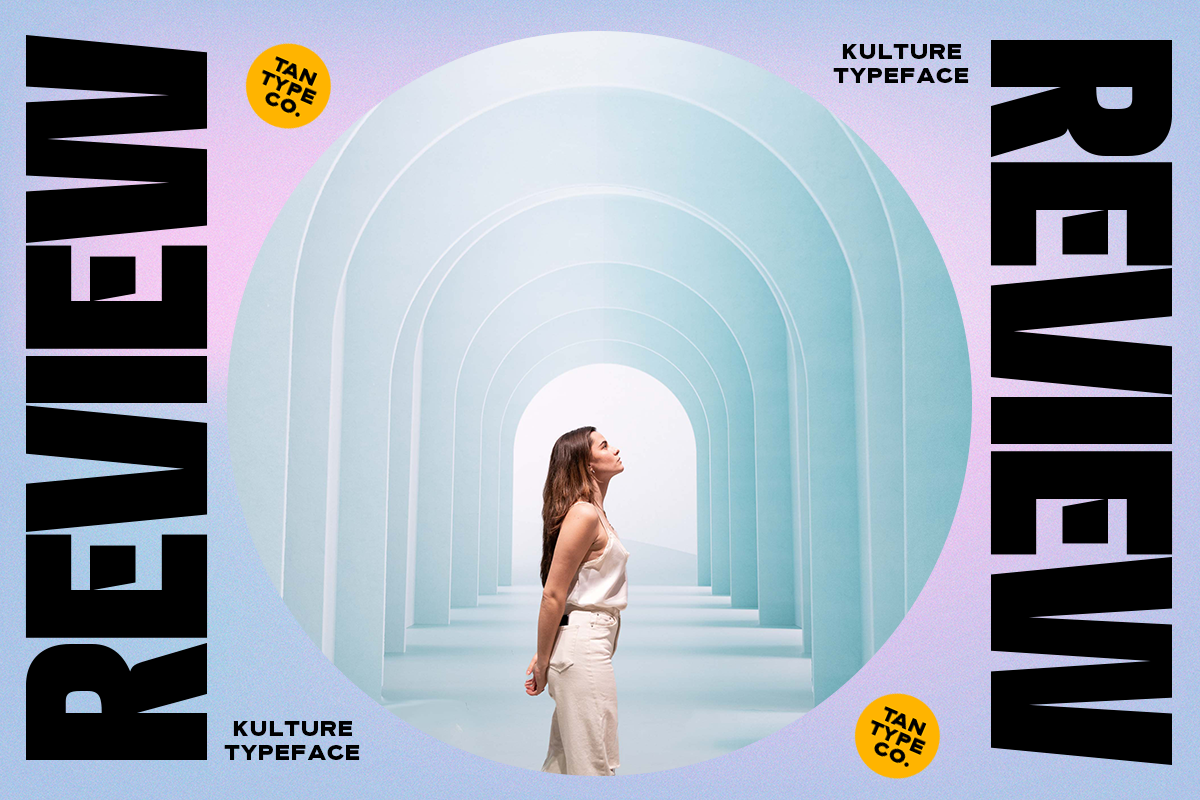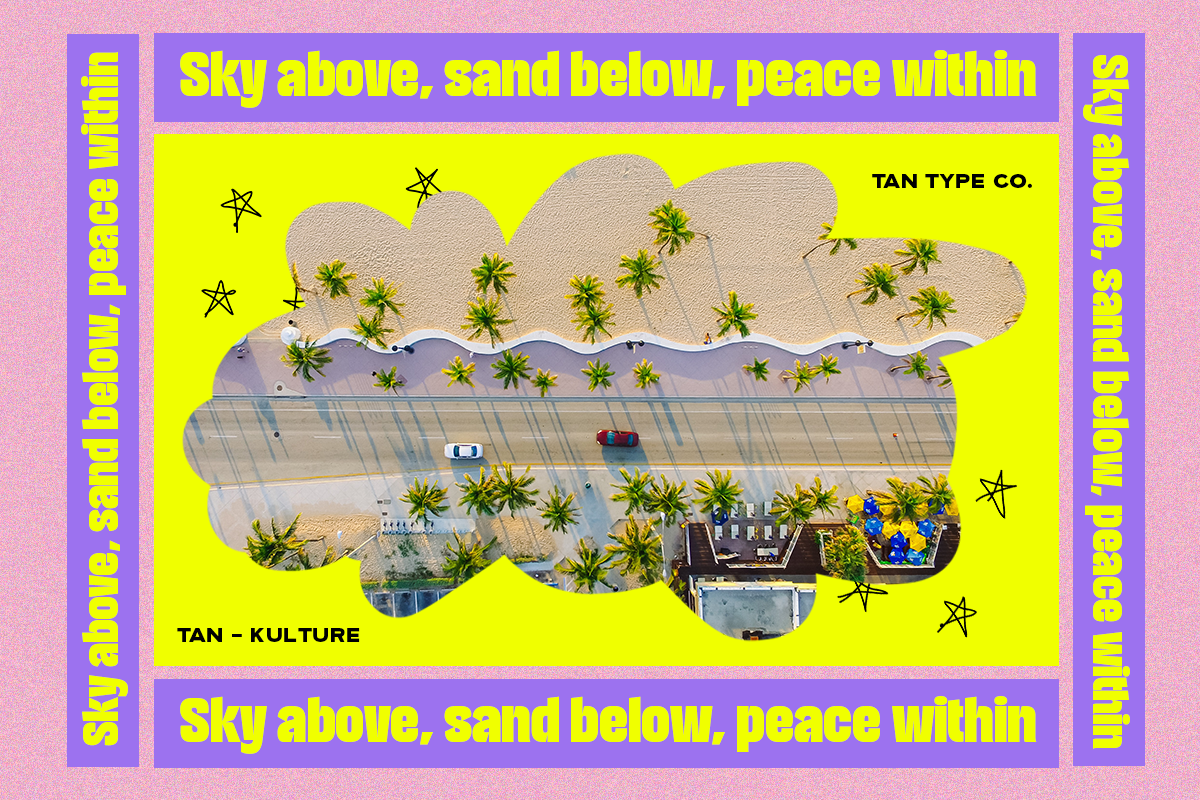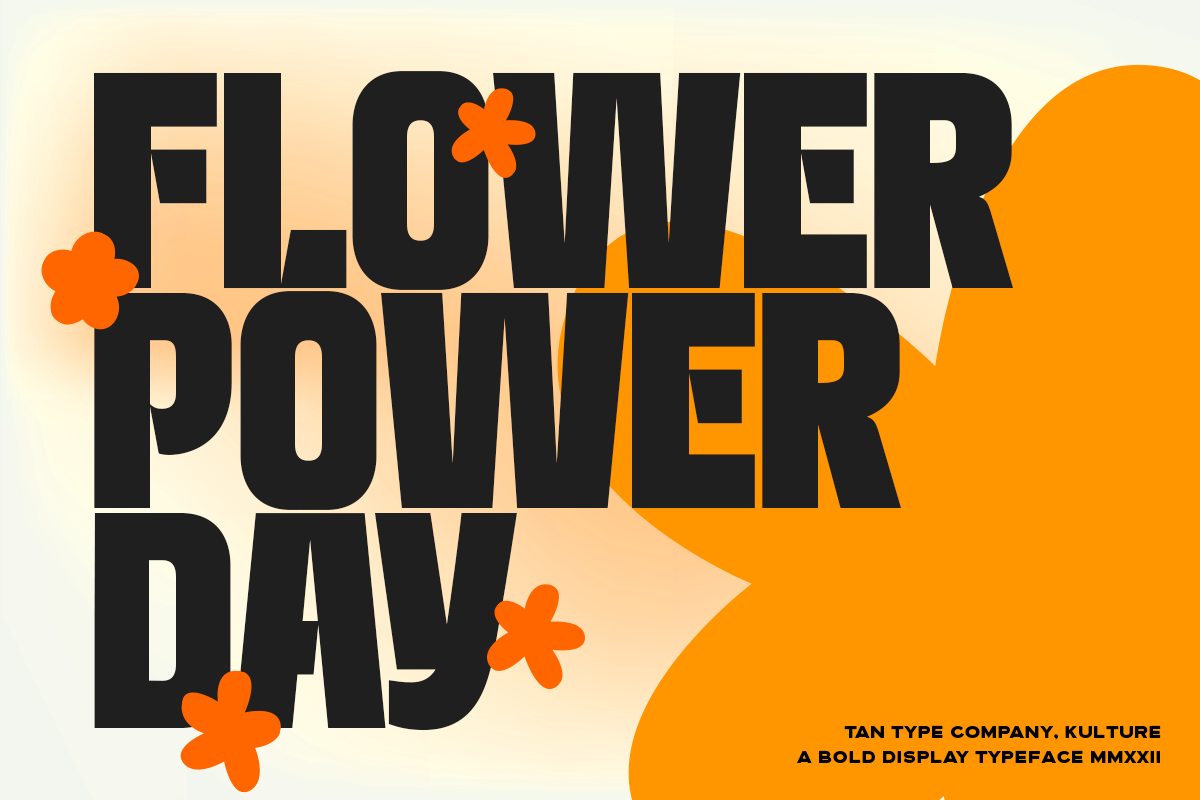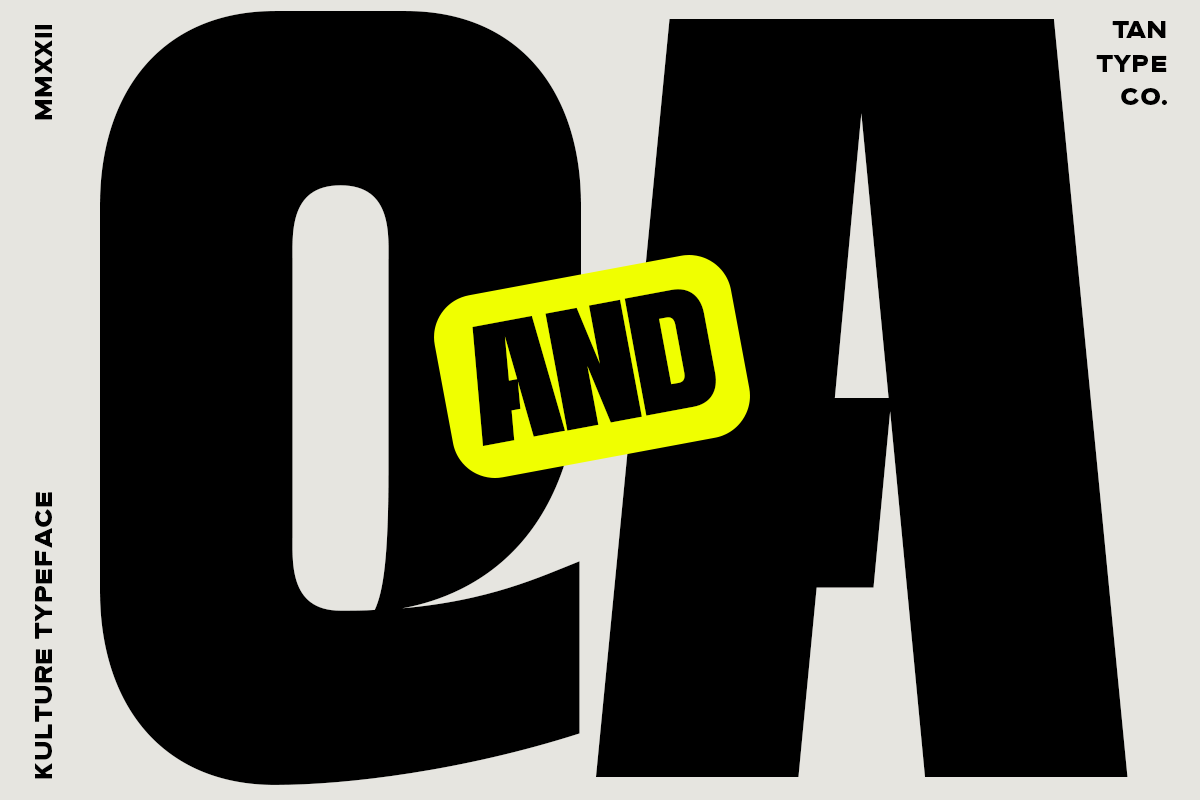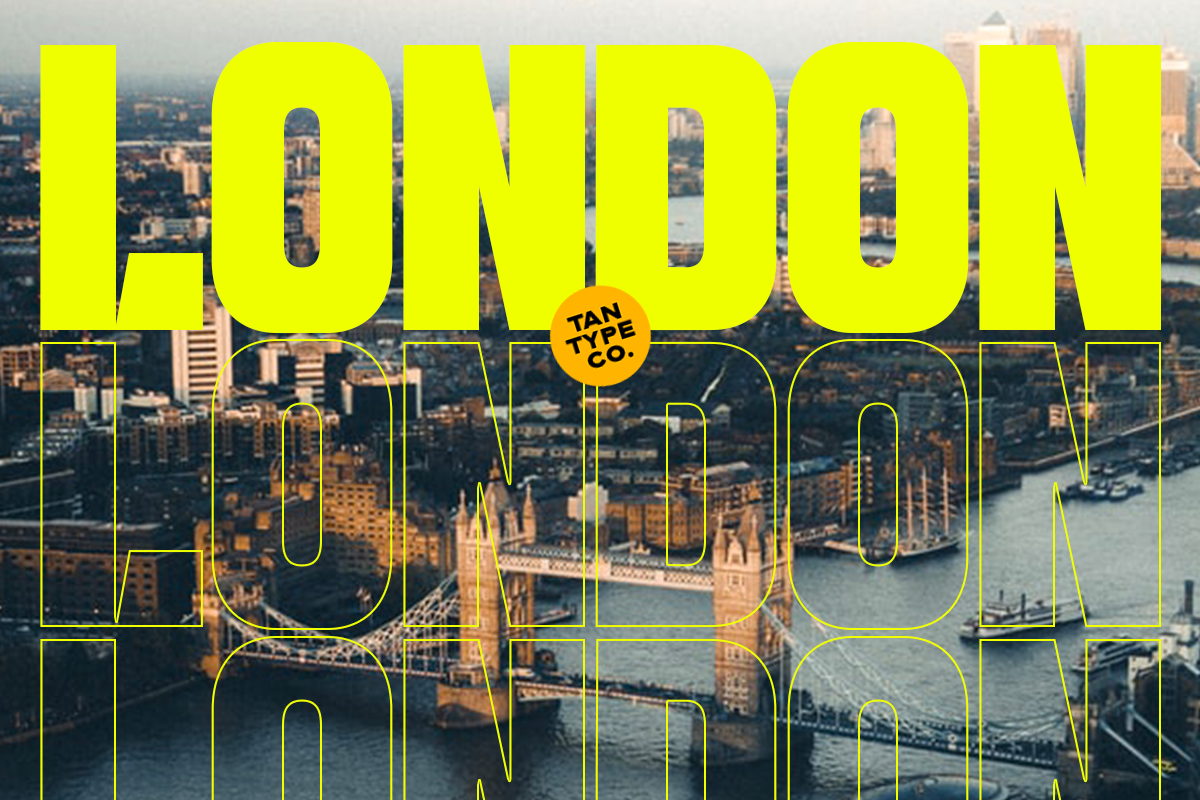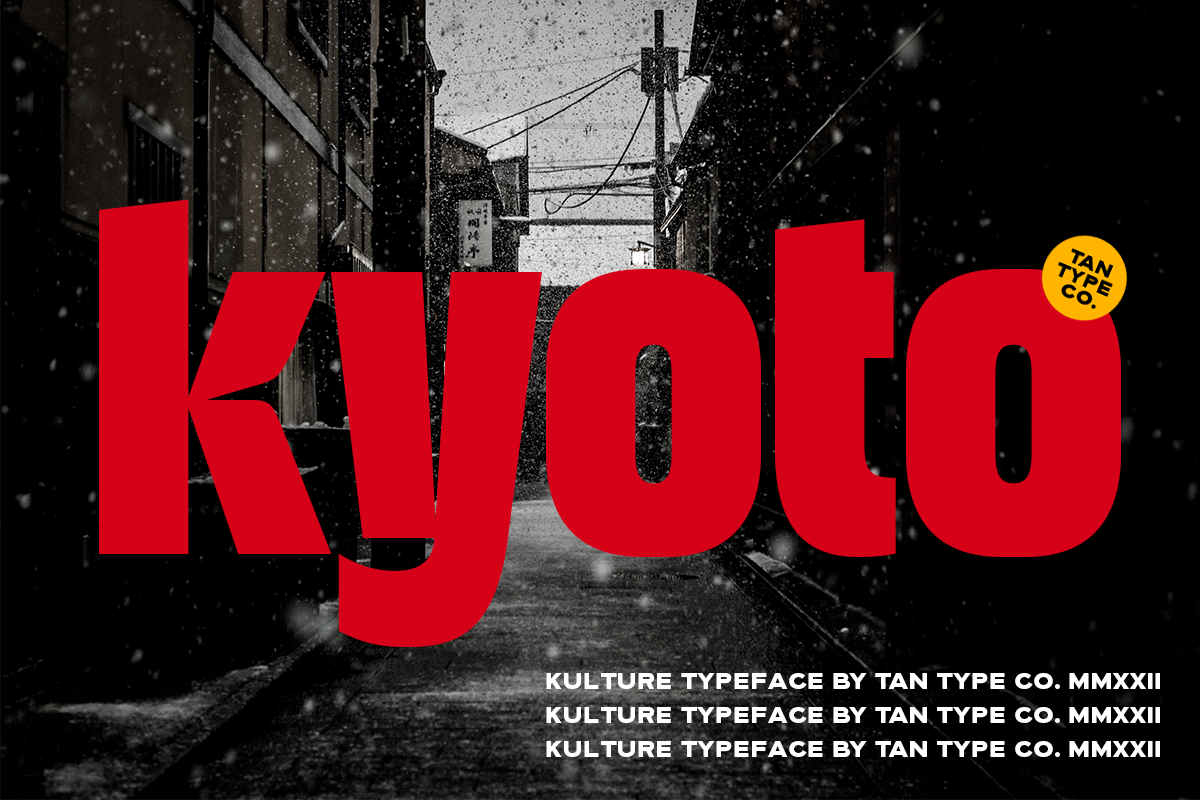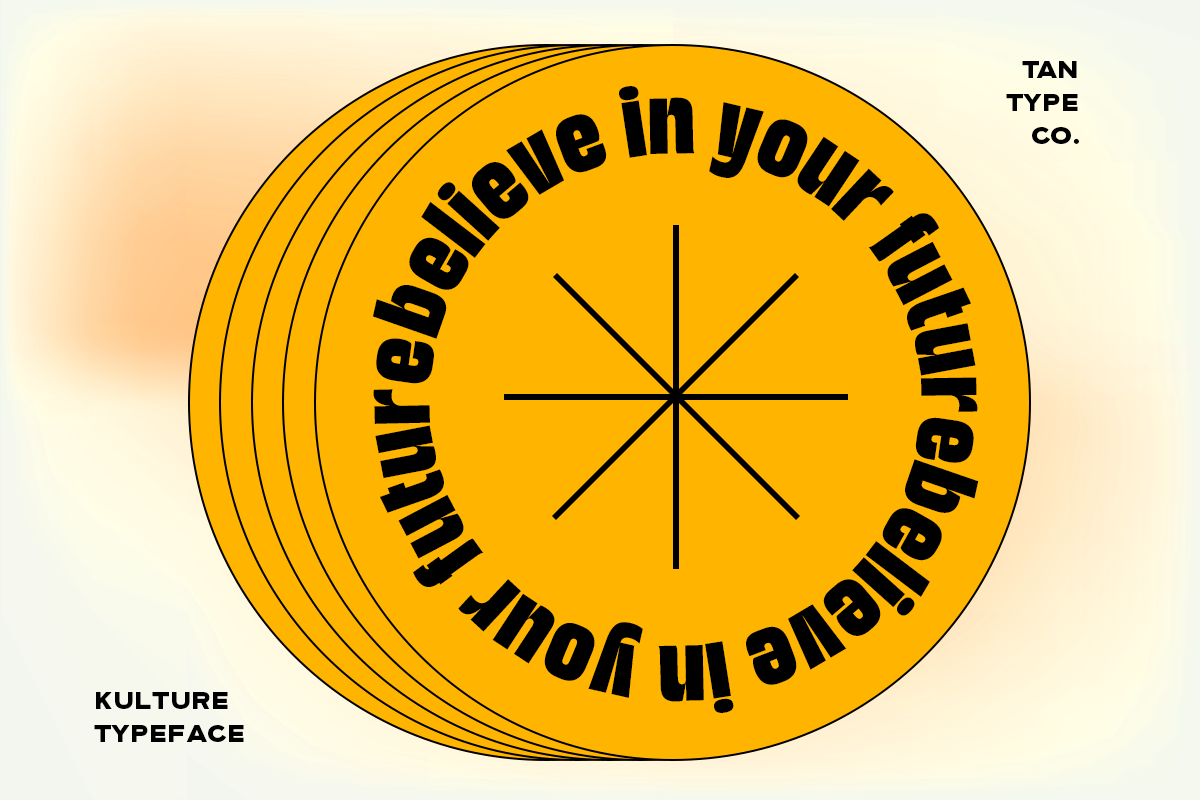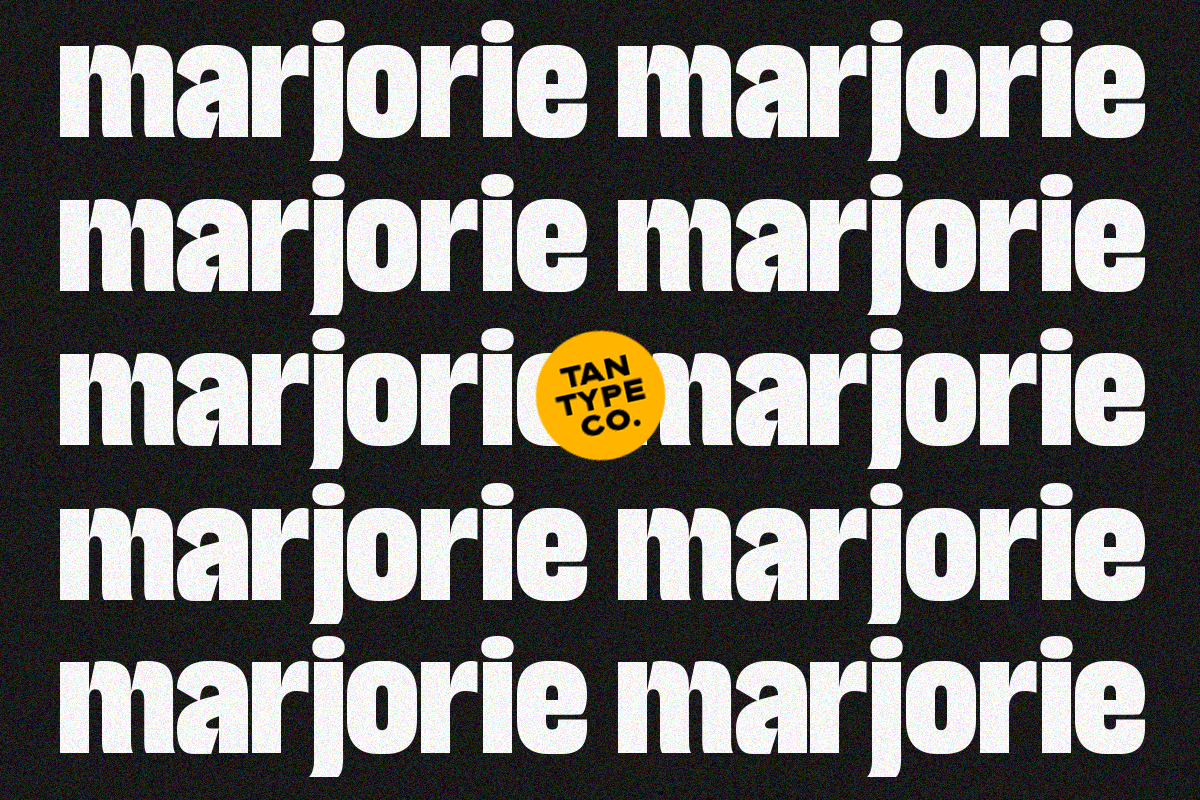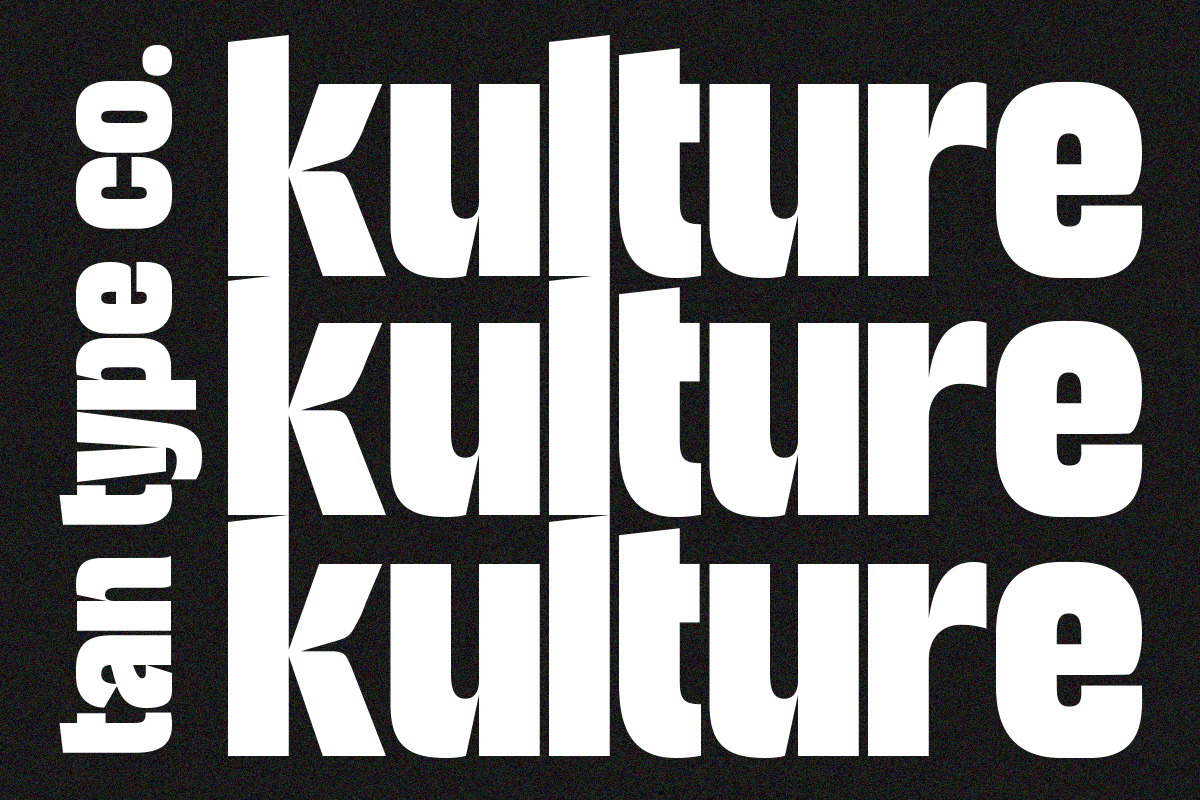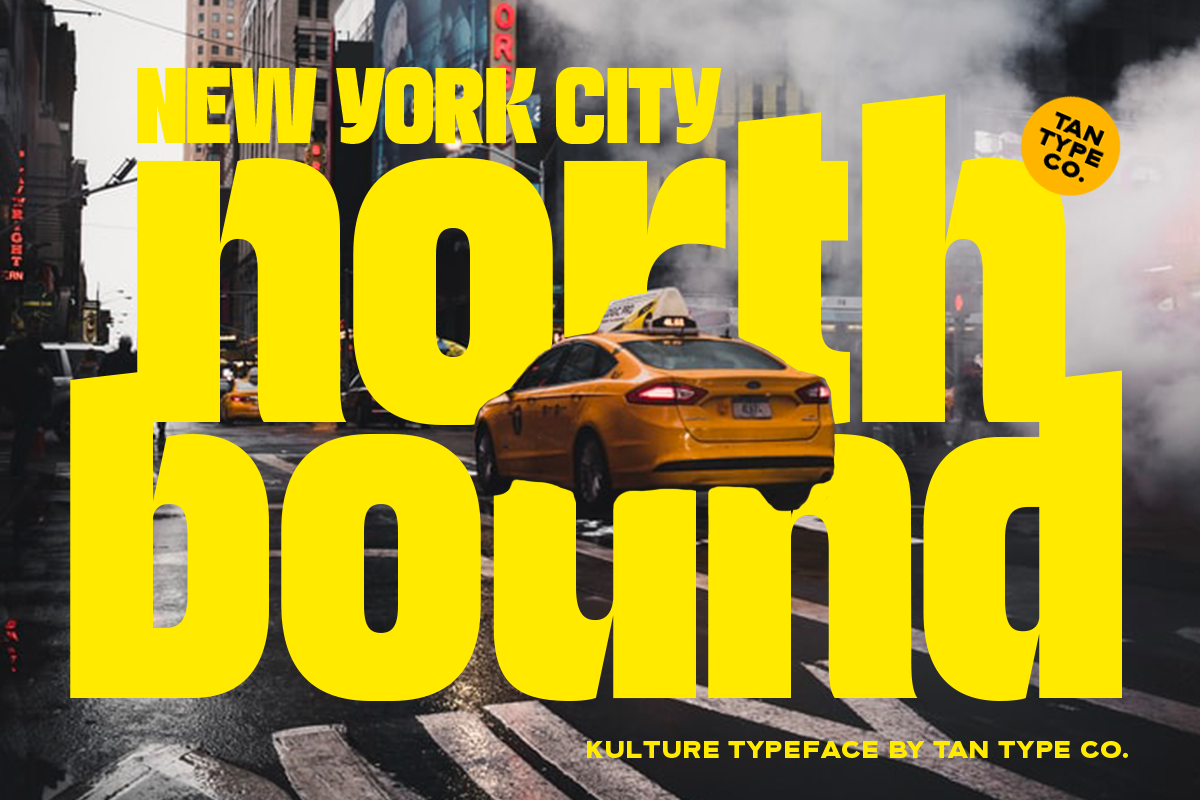
TAN - KULTURE
TAN - KULTURE is a bold display type. Simple in a good way and efficient with tight kernings making it a nice choice if you want a retro look in your design.